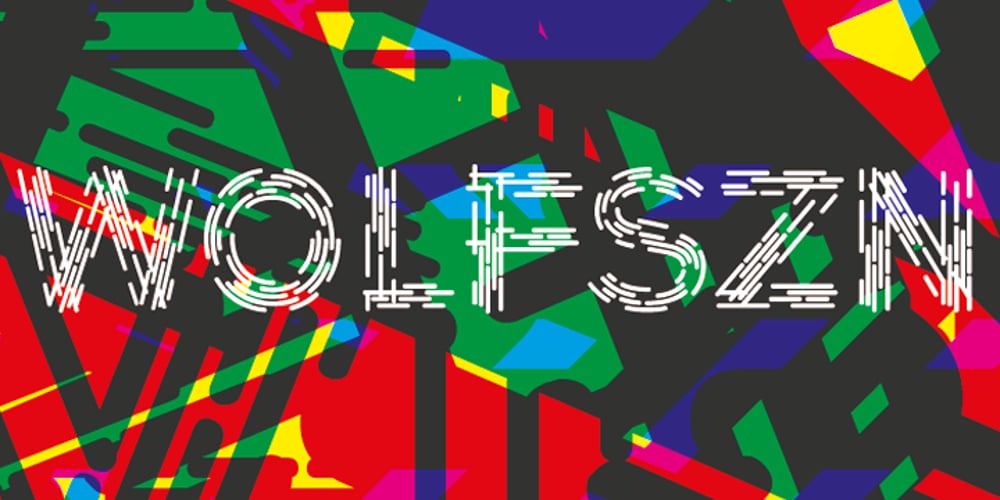
AT Move Wolfszn Font Family was designed by André Toet, Jasper Nijssen and published by André Toet Design. AT Move Wolfszn contains 1 styles and family package options. WOLFSZN Anniversary! WOLFSZN is the tenth Font of André Toet. The inspiration for this capital alphabet came from the trails of an agricultural machine (think tractor) leaves in the soil after working the land. But it’s not meant to be ‘like a heavy workload’, in fact to us it seems like a very useful Font for headings, logotypes, advertising or films. We hope WOLFSZN will be happily and wisely used by my dear colleagues. Concept/Art Direction/Design: André Toet © 2017